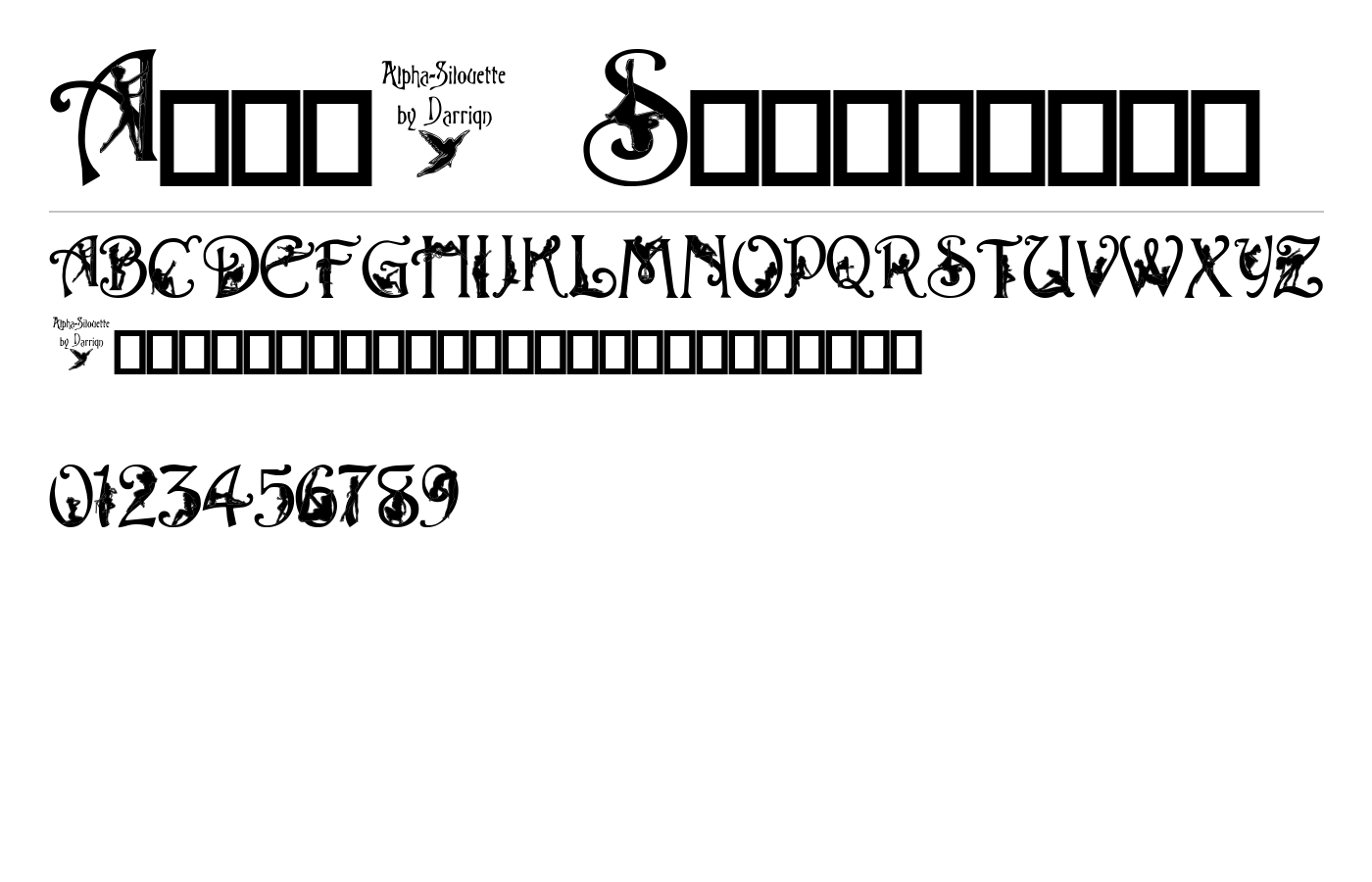
Alpha-Silouette is a decorative serif font that combines intricate, artistic silhouettes with elegant, swirling letterforms, giving it a unique, whimsical character. Its detailed design and bold contrasts make it ideal for creative headlines, logos, and artistic branding where a dramatic, eye-catching style is desired. This font brings a playful, sophisticated vibe best suited for projects needing a touch of fantasy or vintage flair.
Alpha-Silouette Font
About Alpha-Silouette Font